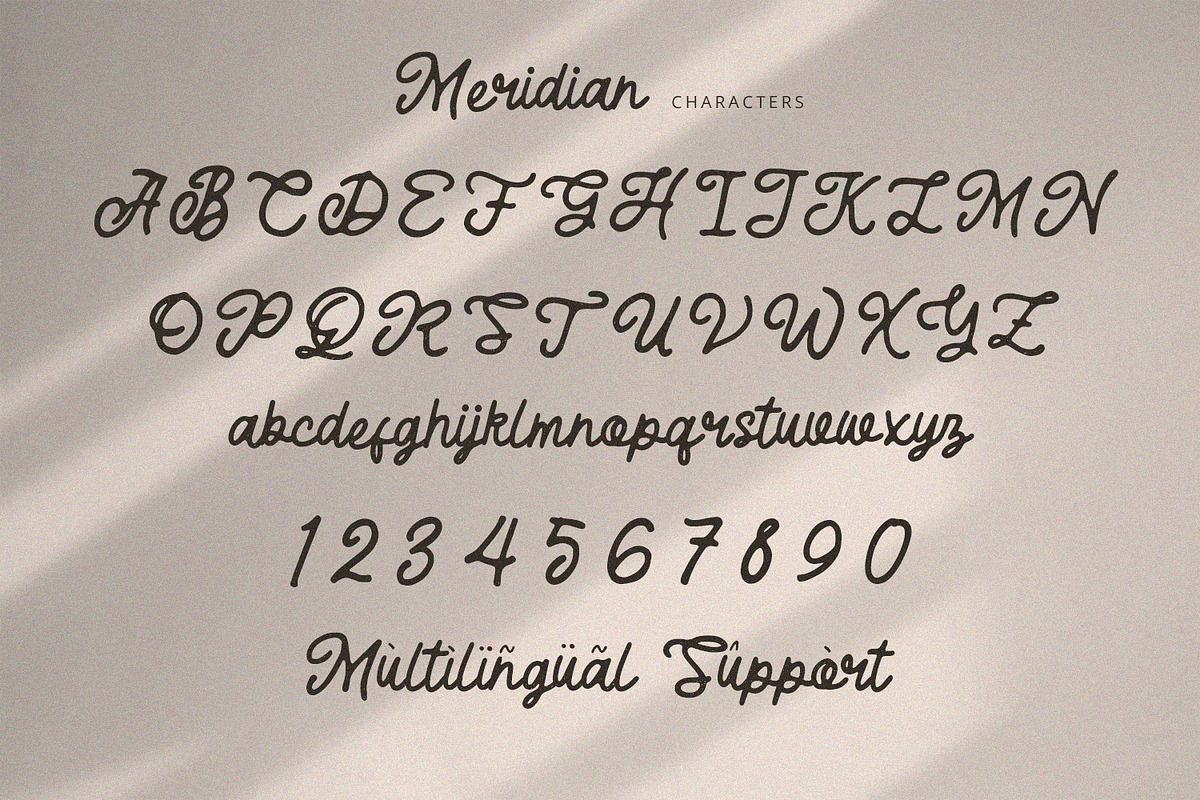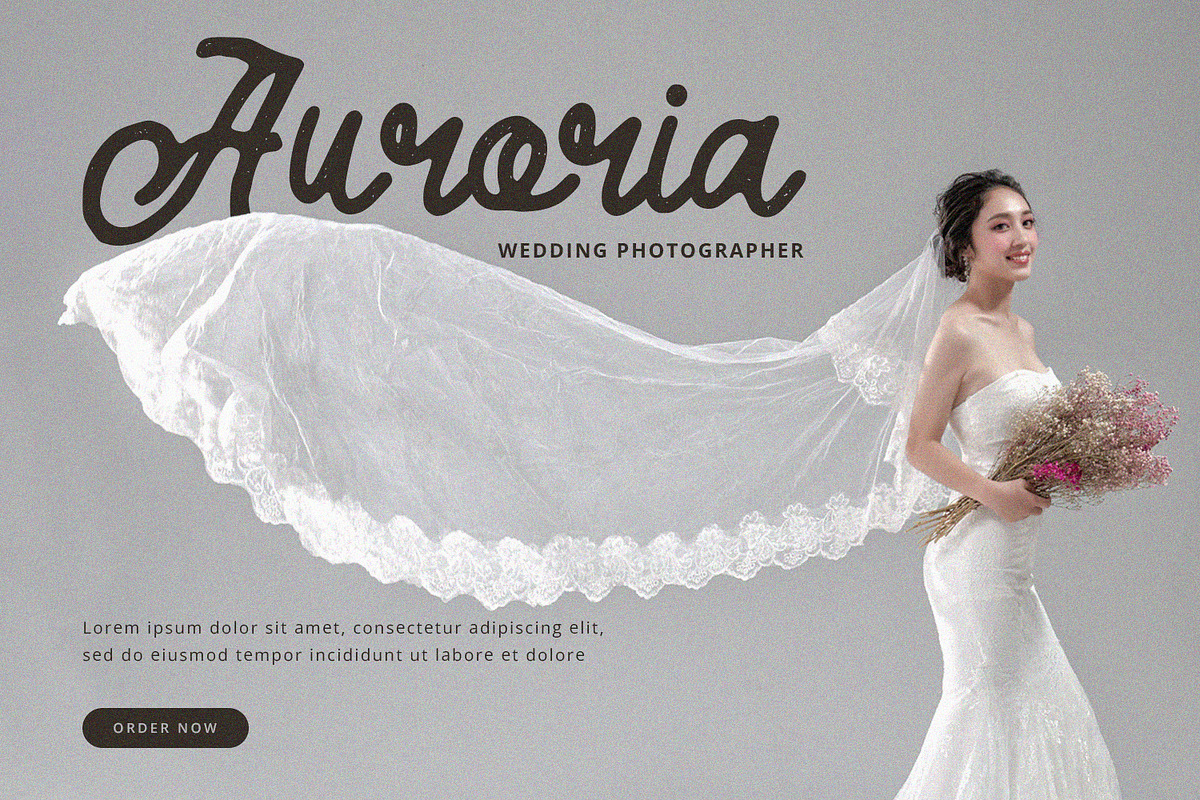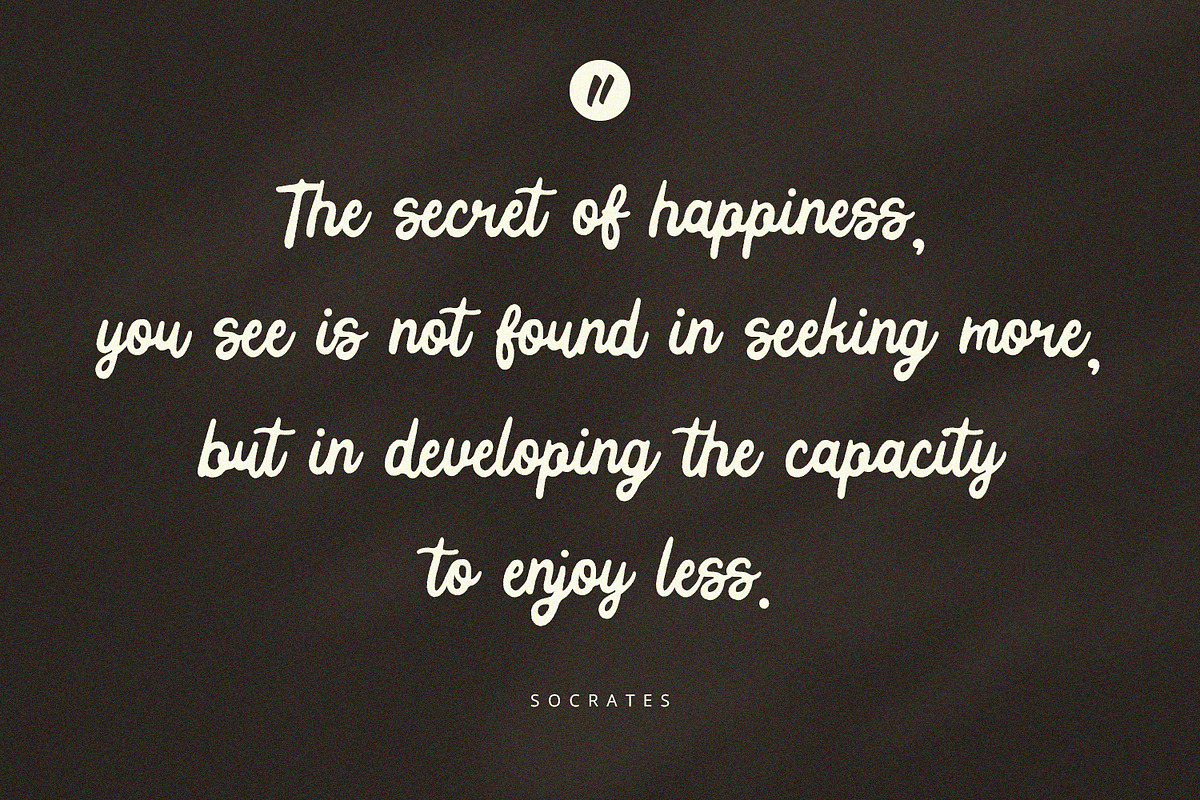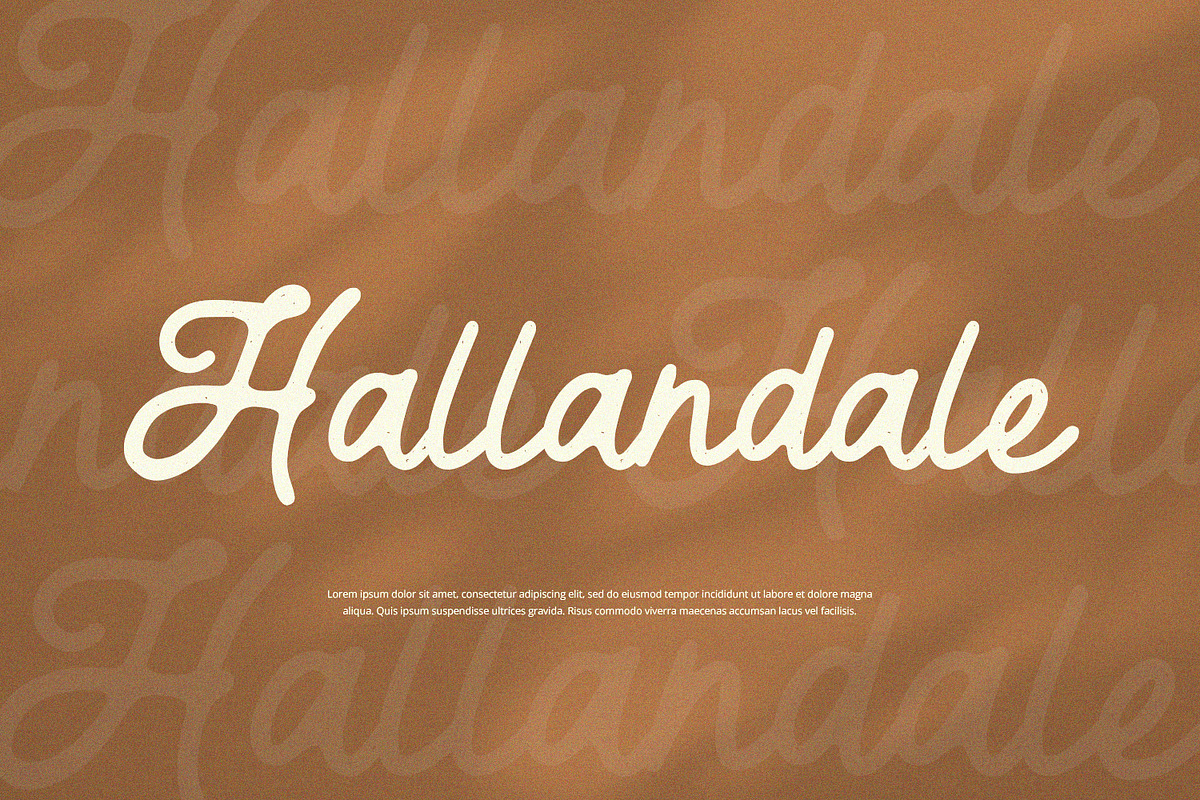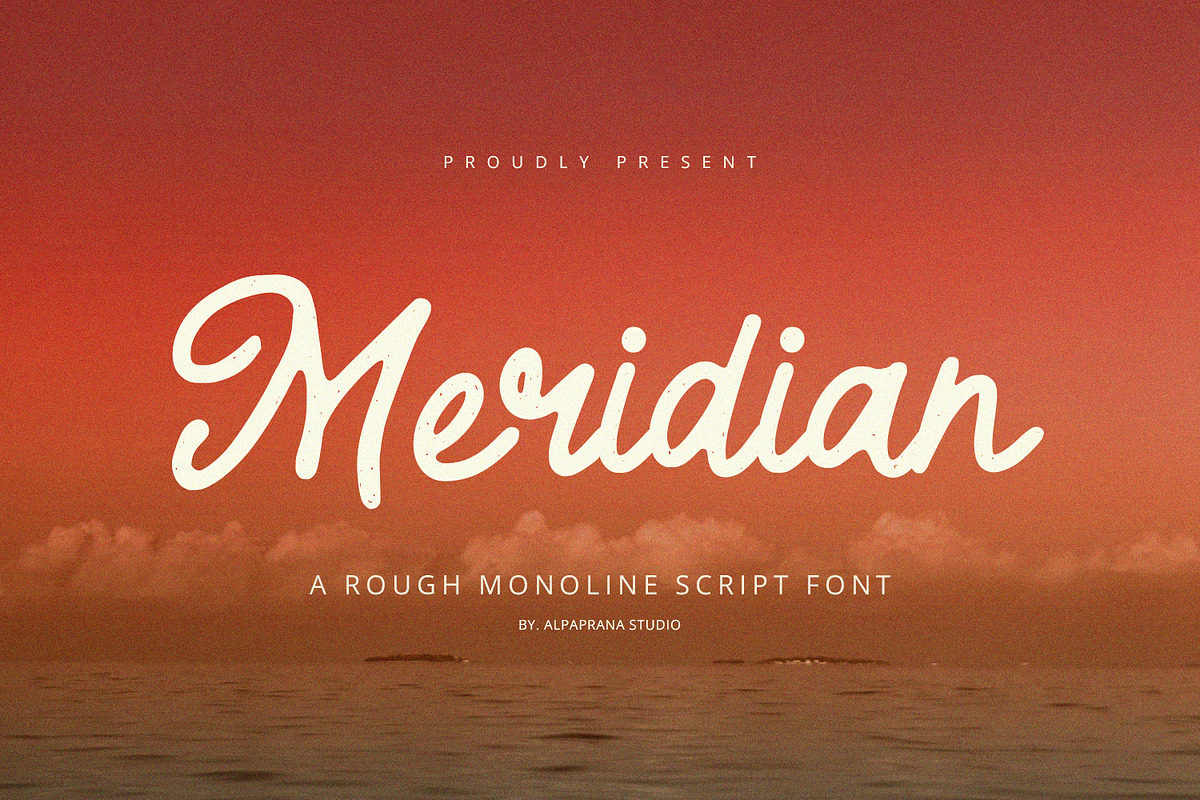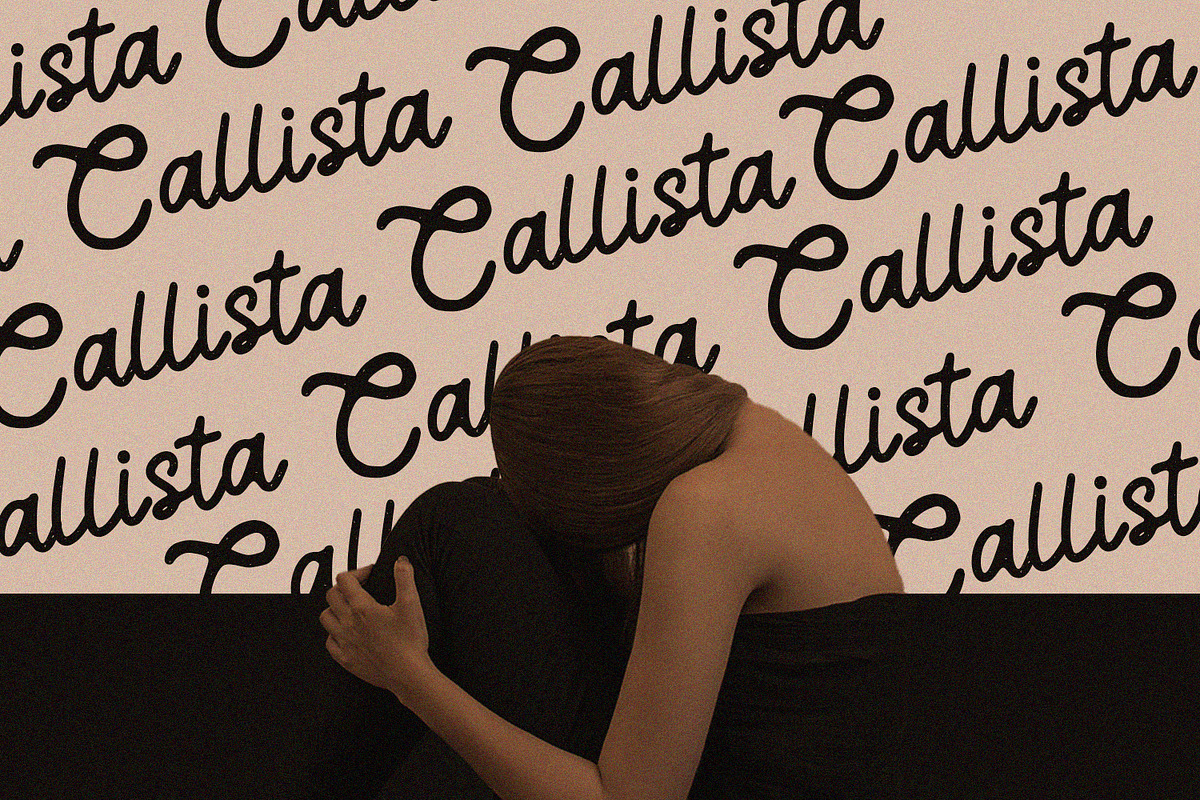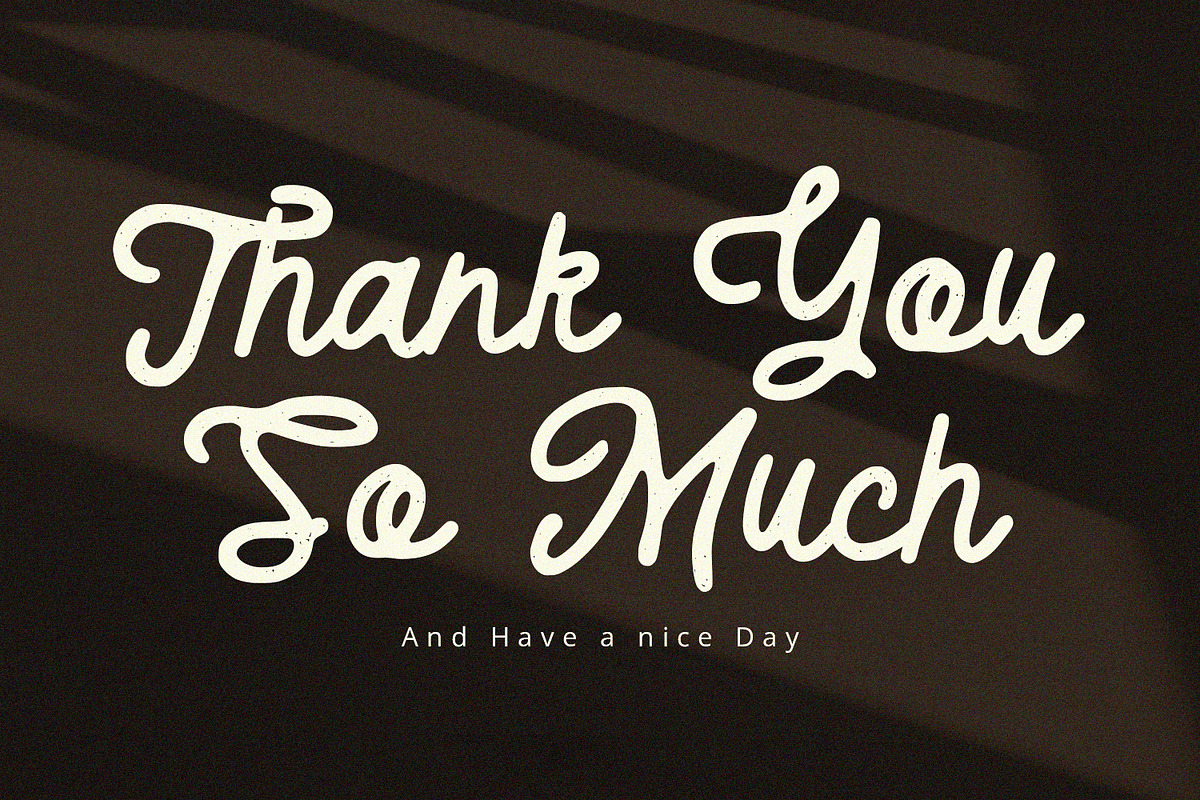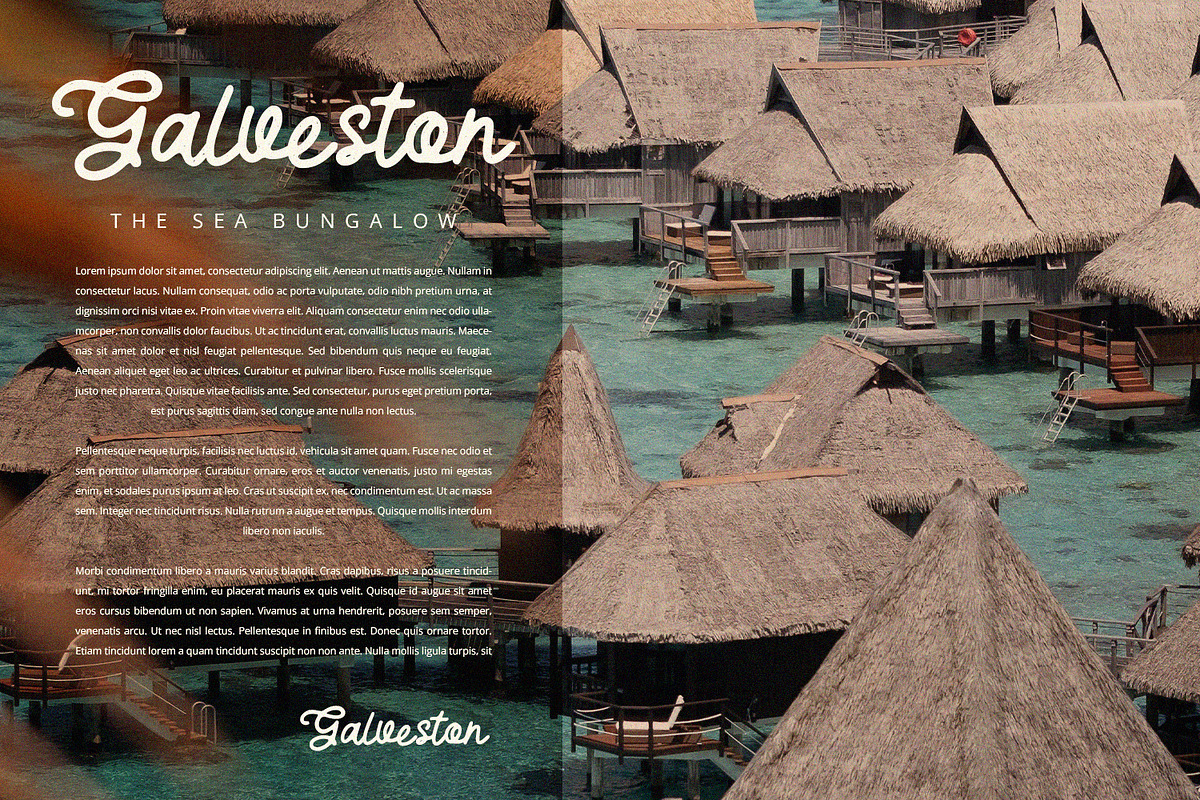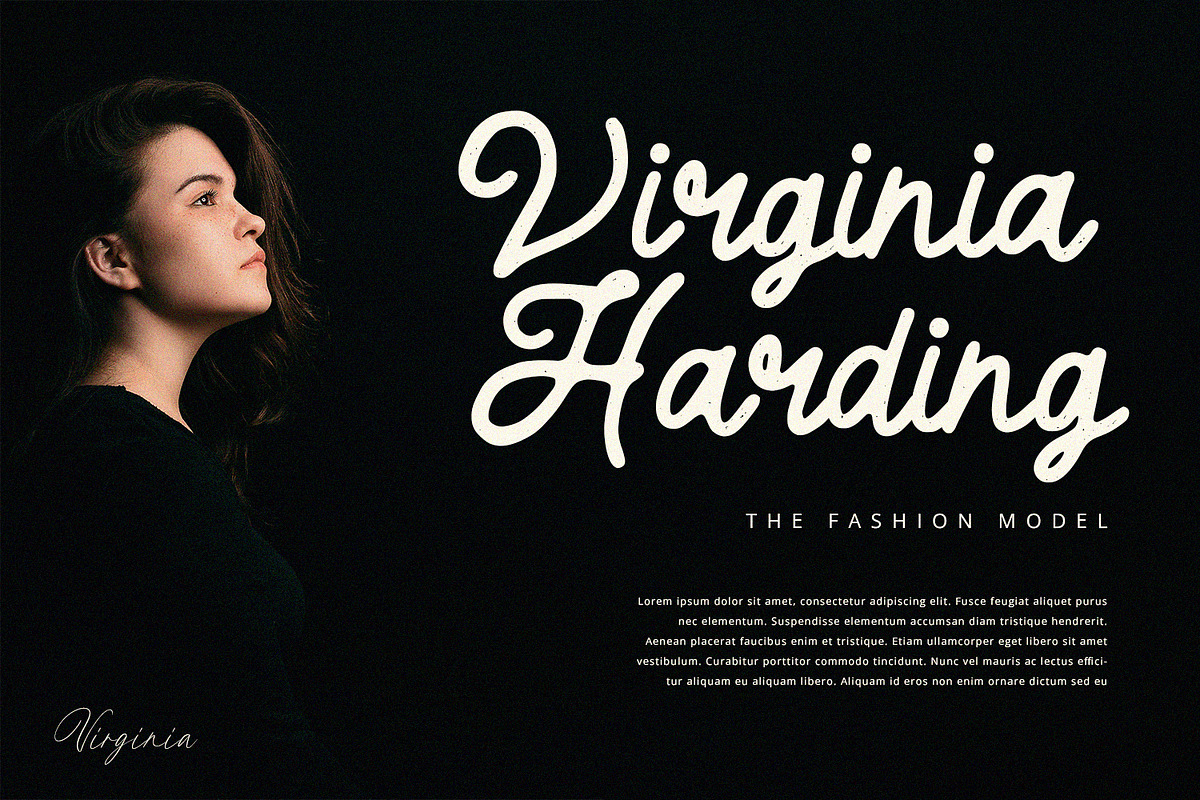
Meridian - Rough Script
Meridian is a rough script font with unique and classic feels. It will be perfectly used for Branding, Logo Design, Lettering, Logotype, Clothing, Poster, magazine, packaging, posters, shopping bags, t-shirts, book covers, photography, special events and other design project.